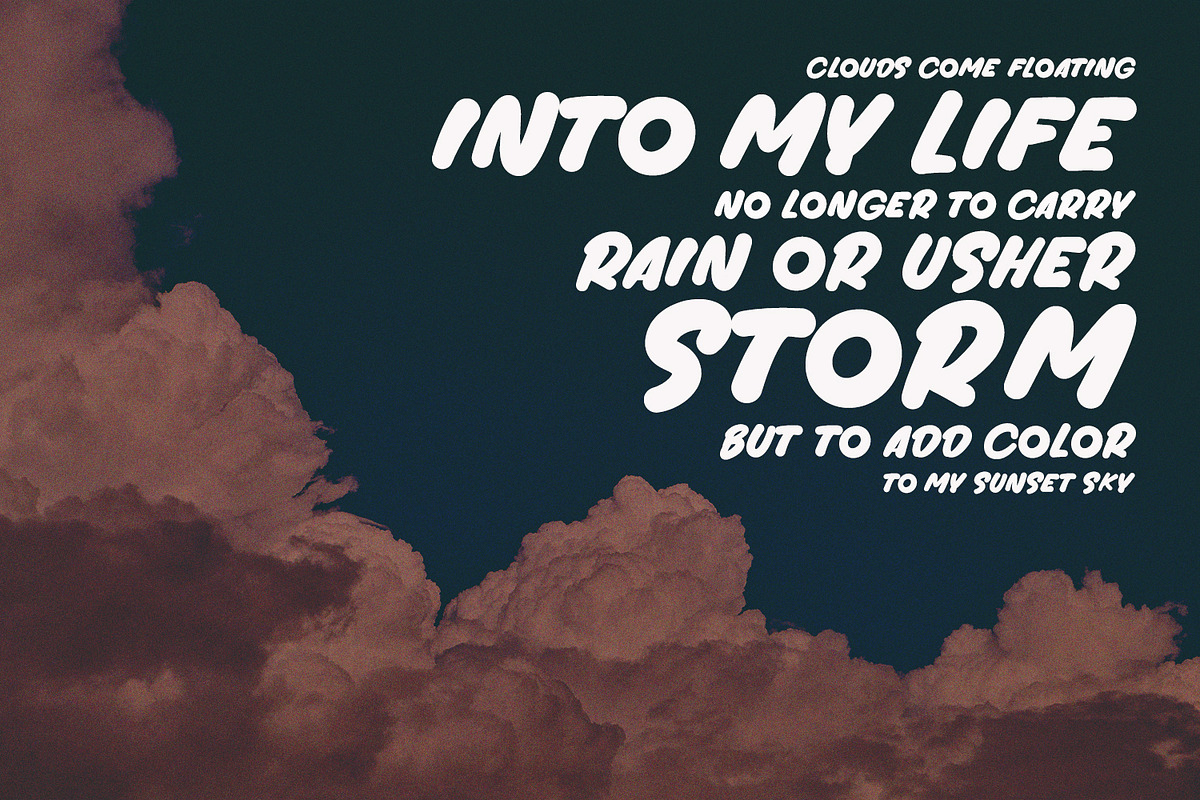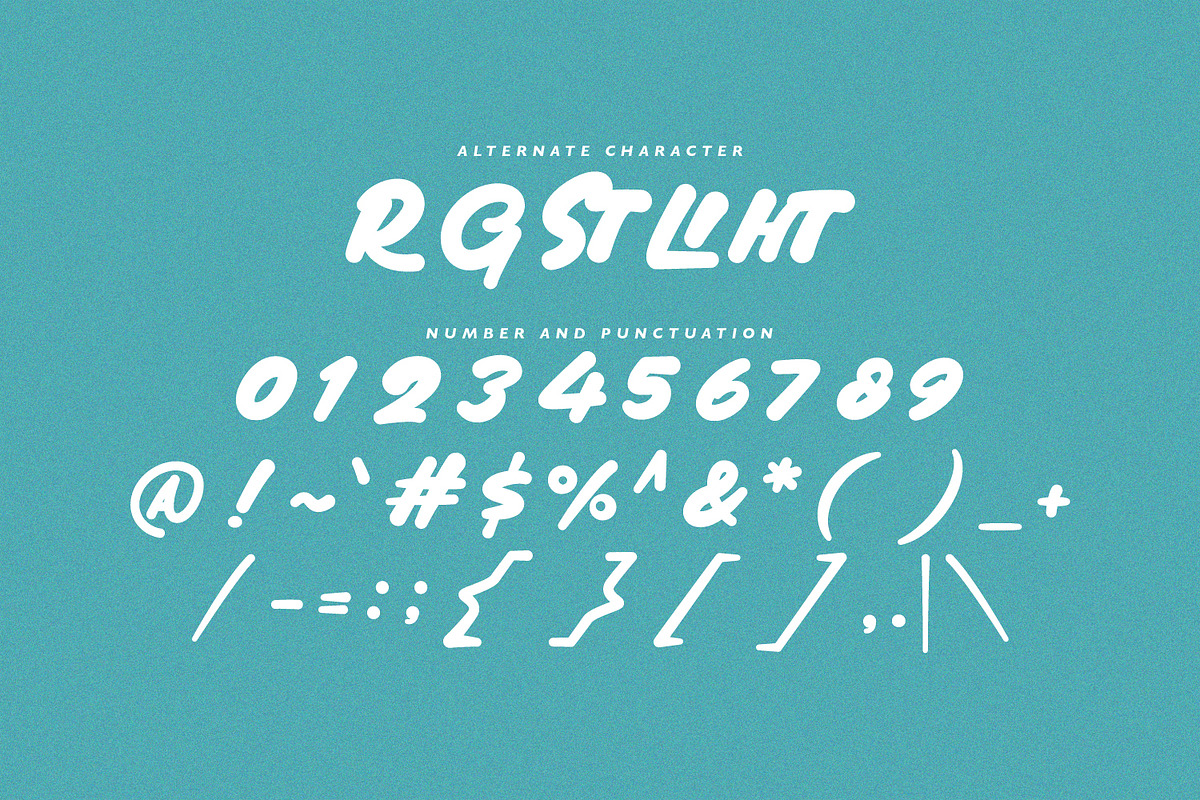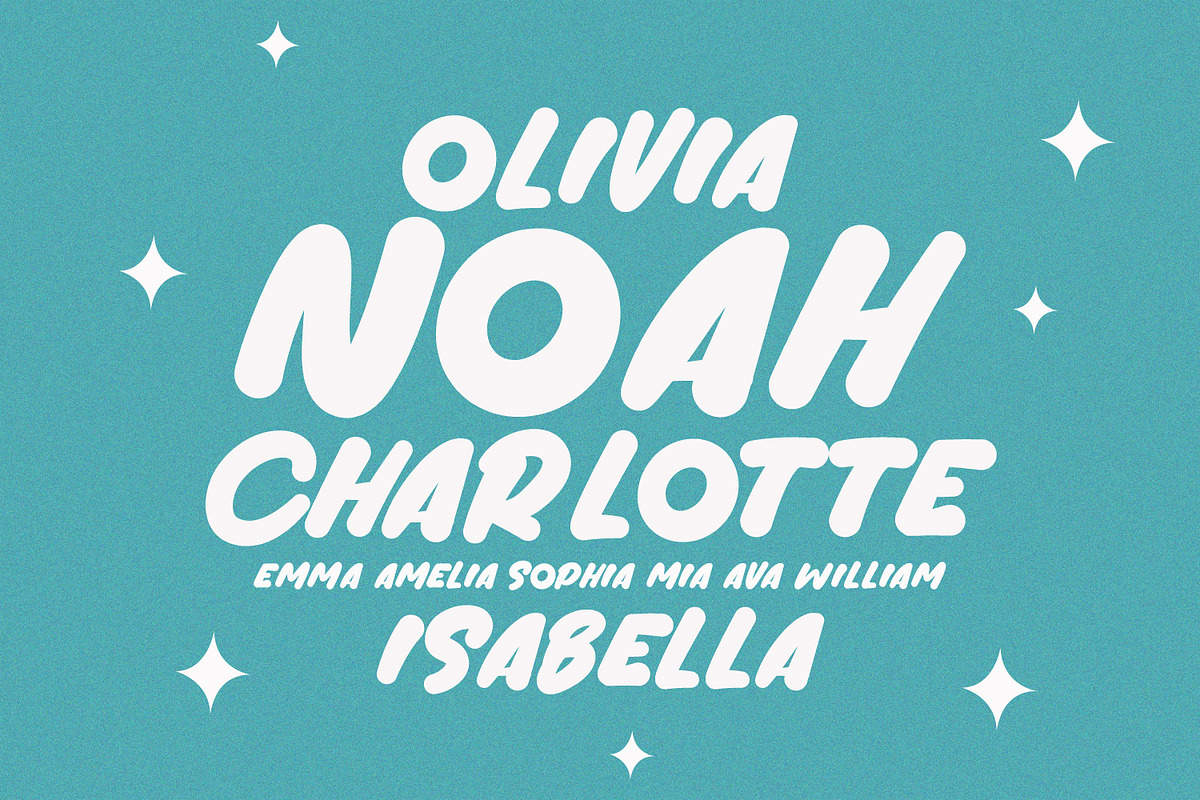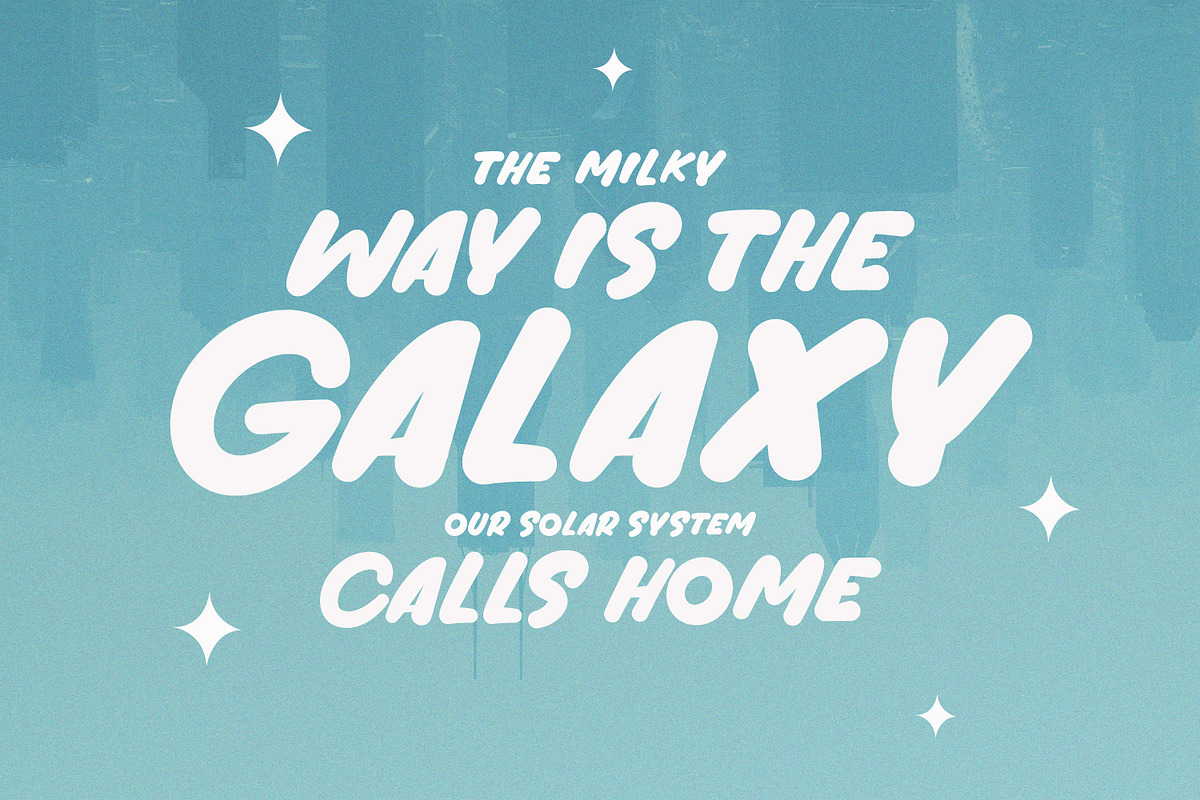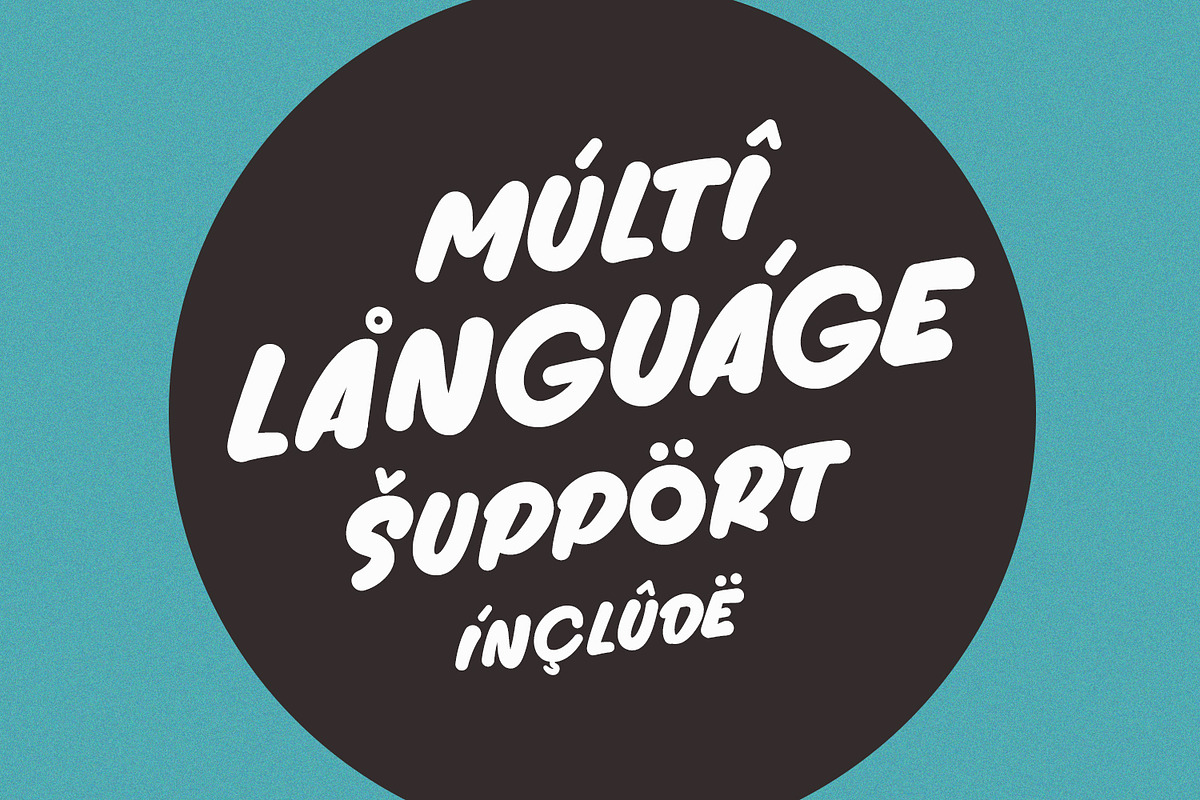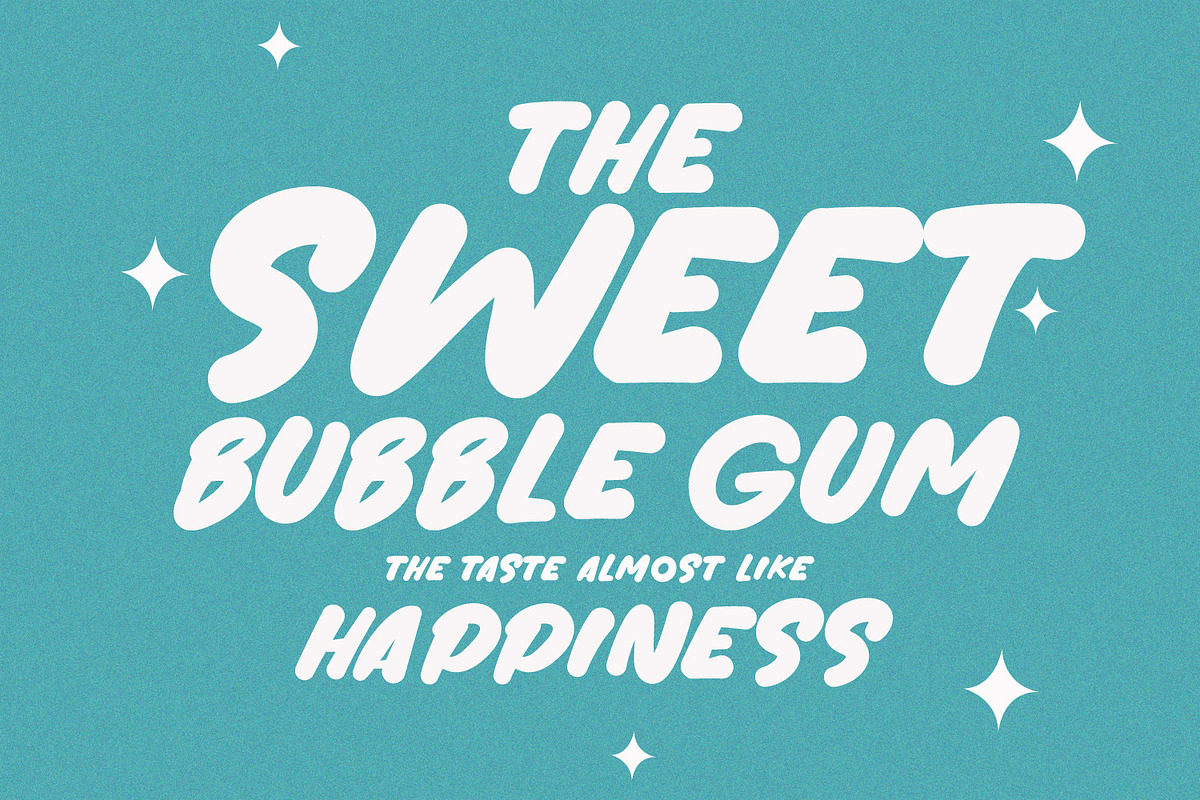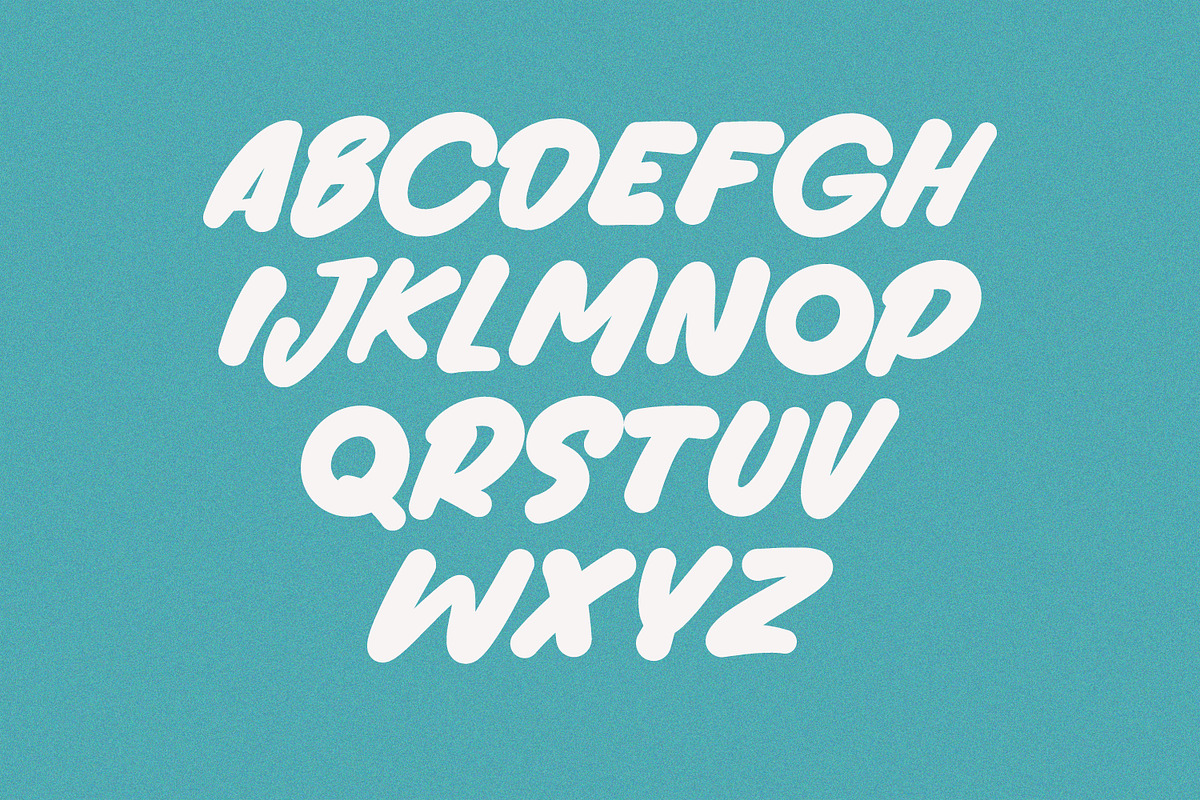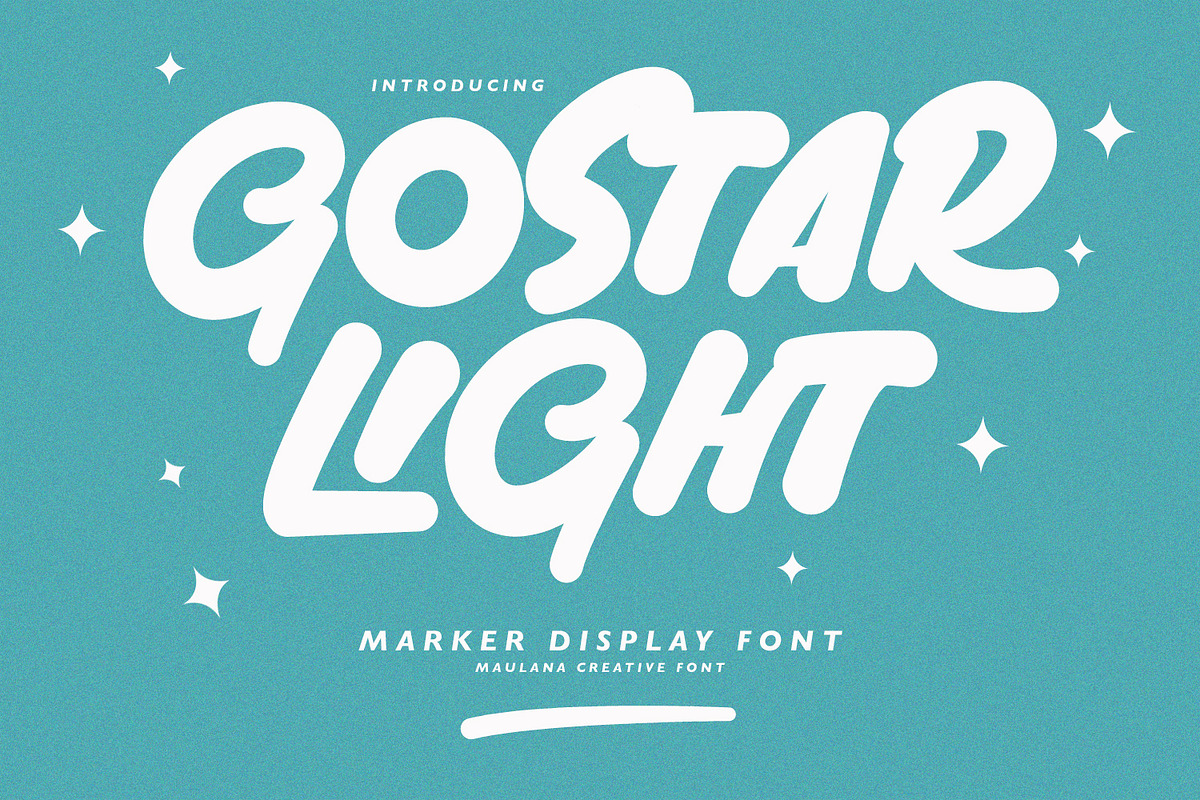
Gostar Light Brush Marker Display
Gostar Light is a brush marker display handwritten font. With bold stroke, fun character with a bit of ligatures and alternates. To give you an extra creative work. Gostar Light font support multilingual more than 100+ language. This font is good for logo design, Social media, Movie Titles, Books Titles, a short text even a long text letter and good for your secondary text font with sans or serif. Make a stunning work with Gostar Light font.